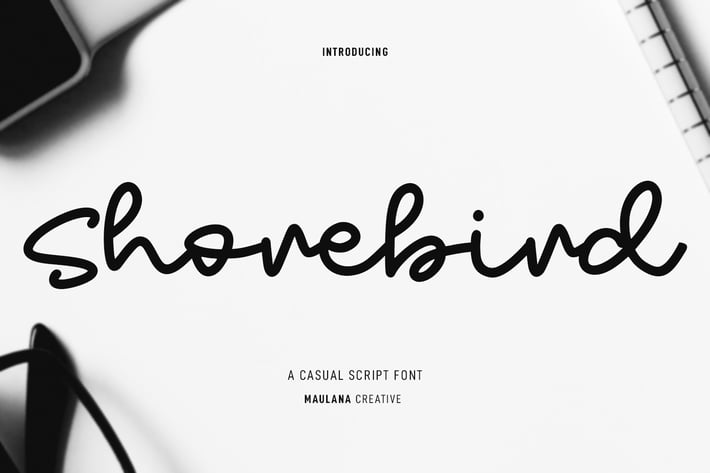
Shorebird Script Font
Shorebird is a casual minimalist script font. With medium mono-line consist stroke, fun character with a bit of ligatures and alternates. To give you an extra creative work. Shorebird font support multilingual more than 100+ language. This font is good for logo design, Social media, Movie Titles, Books Titles, a short text even a long text letter and good for your secondary text font with sans or serif. Make a stunning work with Shorebird font.